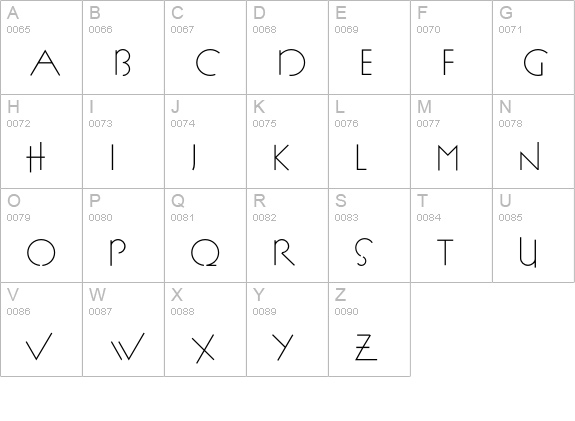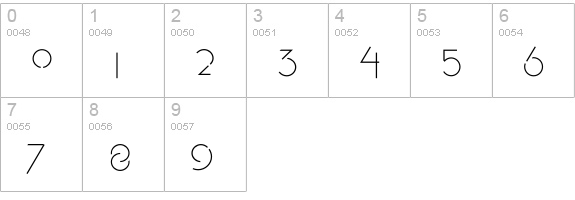
P22FLLWExhibition-Light Font Details
P22FLLWExhibition-Light is a refined, elegant variant in the P22FLLWExhibition typeface family \xE2\x80\x94 well suited to elegant body text, refined sub-headings, and luxury branding.
P22FLLWExhibition-Light is a captivating font that effortlessly combines elegance and modernity. With its delicate strokes and refined curves, this font exudes sophistication and class. It is the perfect choice for any creative project that requires a touch of finesse. This font's light weight adds an air of lightness and grace, making it a versatile option for various design purposes. Whether used in headlines, posters, invitations, or branding materials, P22FLLWExhibition-Light will always make a statement. What sets this font apart is its unique feature of being free. Yes, you heard that right! P22FLLWExhibition-Light is freely available to download at FontsMarket.com. This means that you can enhance your design projects without any additional cost. The freedom to use this font without any restrictions allows you to explore your creativity and create stunning designs. The clean and legible letterforms ensure readability, making it an ideal choice for both print and digital mediums. P22FLLWExhibition-Light is a font that effortlessly blends beauty and functionality. Its versatile nature, combined with its availability as a free download, make it a must-have for any designer or typographer. So go ahead, unlock your creativity, and let P22FLLWExhibition-Light be your design companion.